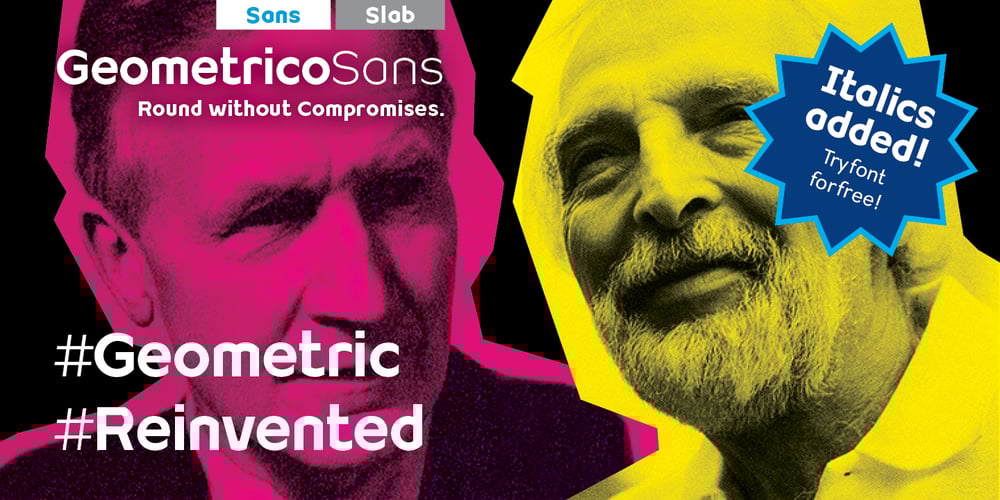
Geometrico Sans
Geometrico Sans font
Geometrico Sans Font Family was designed by Filippo Salmina and published by FSdesign-Salmina. Geometrico Sans contains 25 styles and family package options. Are you looking for a modern typeface? Geometrico. Round without Compromises.Now 12 Italic Styles added. Even more futuristic than the classical Bauhaus typeface Futura, “Geometrico” is a geometric typeface based on round shapes as suggested by its name. Designed without compromises, neither in form nor in function: Geometrico is ideal for logotypes, headlines and other modern typographic purposes. Would Paul Renner be delighted? Or would he turn around in the grave? Make your own opinion. Try Geometrico for free. Download a free trial version of Geometrico with a reduced character set. Check it out!